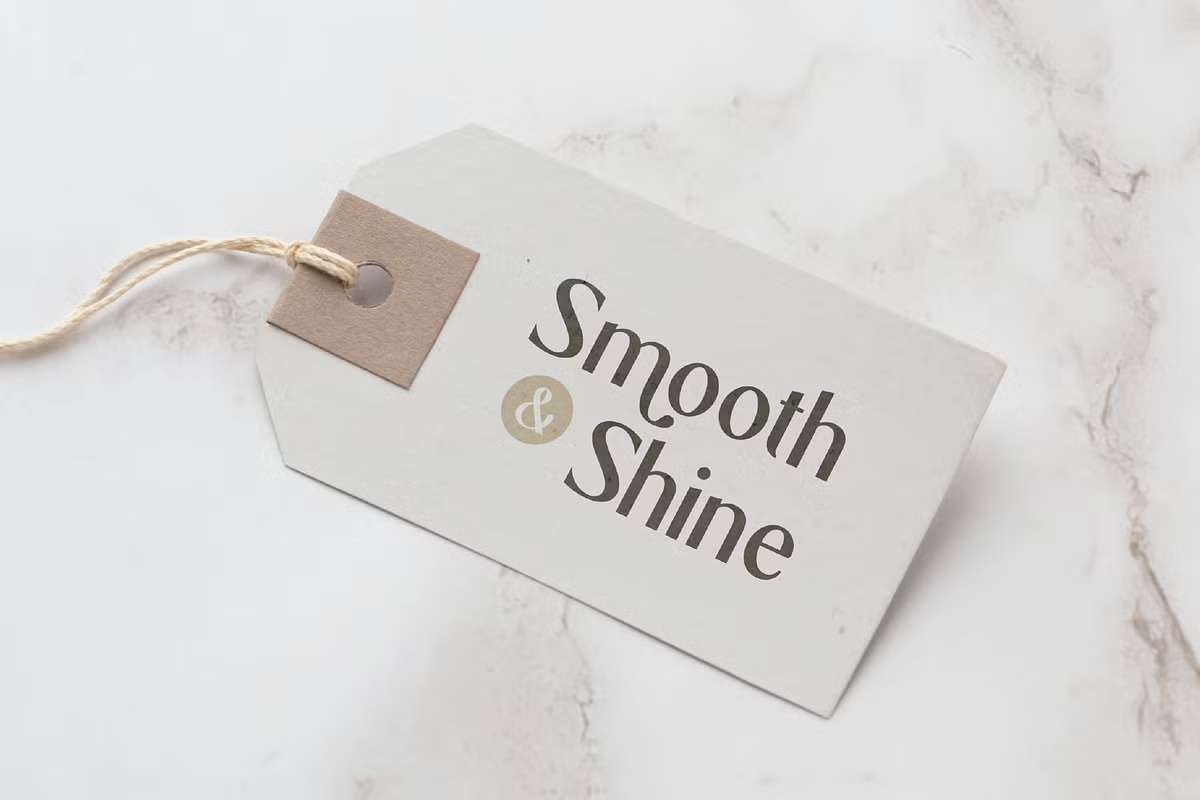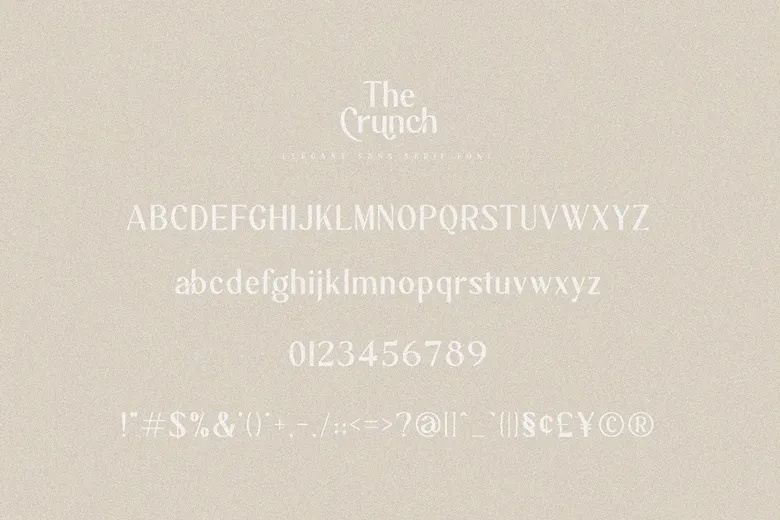
The Crunch Font
Crunch is a sleek and modern sans serif typeface, crafted with elegance and versatility in mind. Ideal for a wide range of design applications—logo design, posters, branding, embroidery, and more—Crunch brings a refined touch to any creative project.
Packed with a rich selection of stylish alternates and elegant ligatures, this font lets you customize and elevate your typography to create truly striking designs.
The Crunch Sans Serif Font